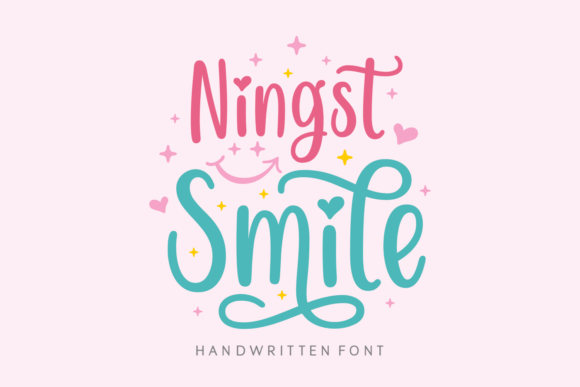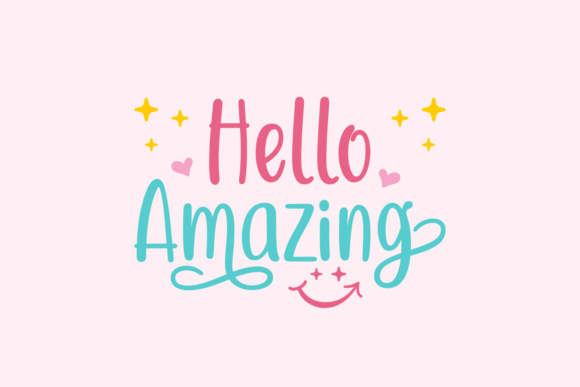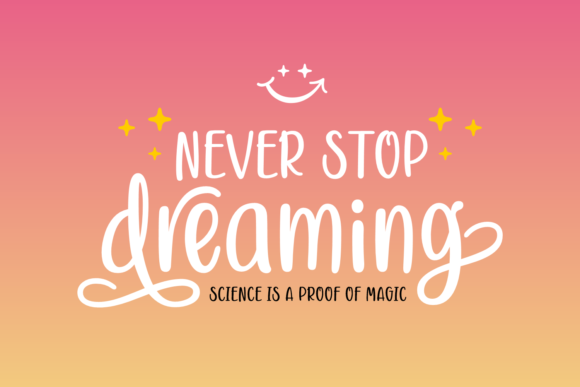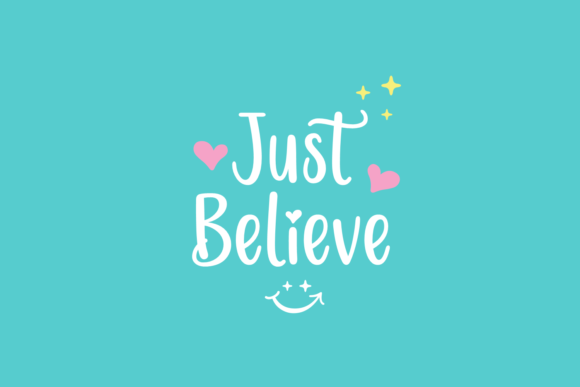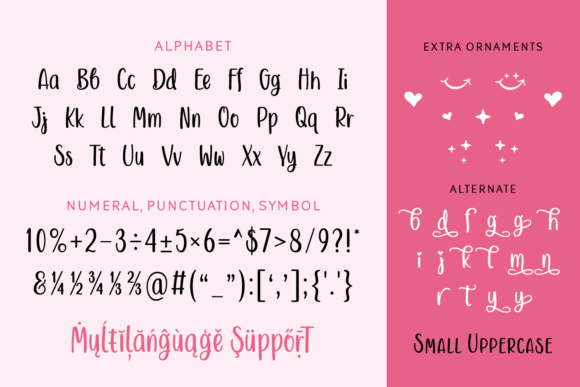
Ningst Smile Font
About Ningst Smile Font
Ningst Smile is a whimsical and lovely handwritten font. Its sweet and full of life style makes this font a wonderful choice for brightening up your designs.